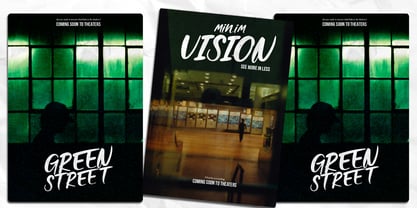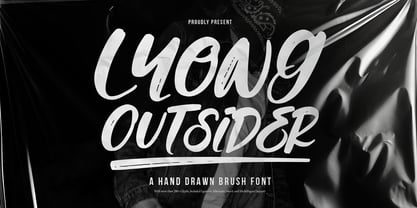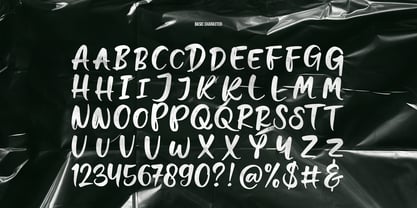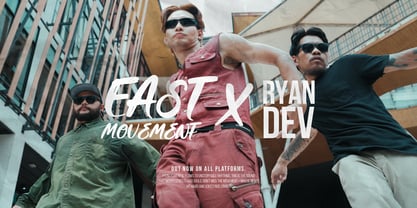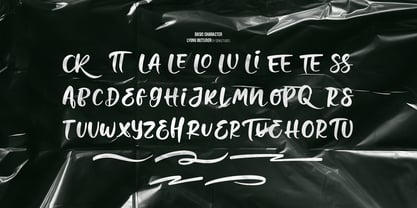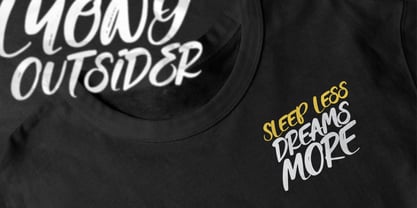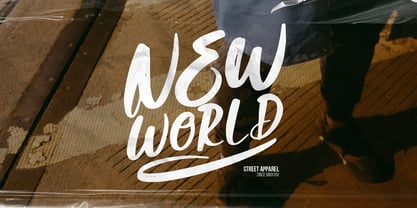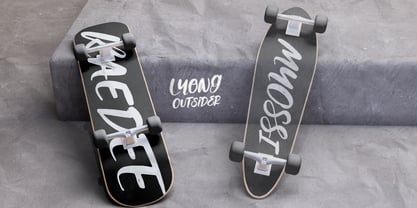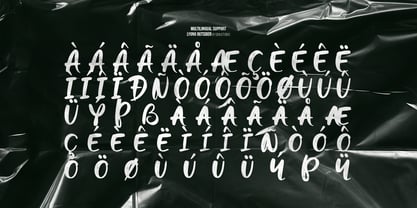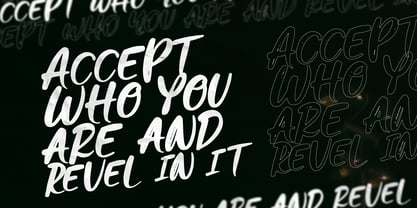
Lyong Outsider
von Denustudio
Die Schriftfamilie Lyong Outsider wurde von Dede Nugraha entworfen und von Denustudio veröffentlicht. Lyong Outsider enthält 2 Stile und Familienpaketoptionen. Mehr über diese Familie
Lyong Outsider | Hand Drawn Brush Font, from Denustudios, suitable for any projects such as: logos, branding projects, homeware designs, product packaging, mugs, quotes, posters, shopping bags, t-shirts, book covers, name card, invitation cards, greeting cards, label, photography, watermark, special events, and all your other lovely projects that need a Hand Drawn Brush Font taste.
• Regular and Italic
• Alternate and Ligature